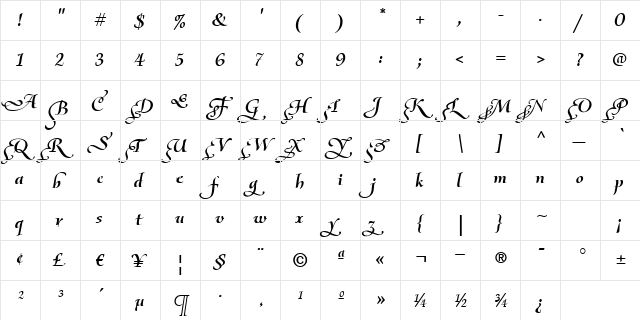
Olietta script-Poesia BoldItalic
Design Context for Olietta script-Poesia Typeface
Olietta script-Poesia flows with the natural rhythm of handwritten lettering, making it ideal for designs that call for warmth and personal expression. Its bold stroke weight gives it real presence on the page.
Font Pairing: Combine Olietta script-Poesia with a simple geometric sans for maximum contrast — the tension between flowing curves and clean structure is a classic typographic pairing.
Pro Tip: Use Olietta script-Poesia for short runs of text — names, titles, or taglines. Extended body copy in script faces tires the eye quickly.